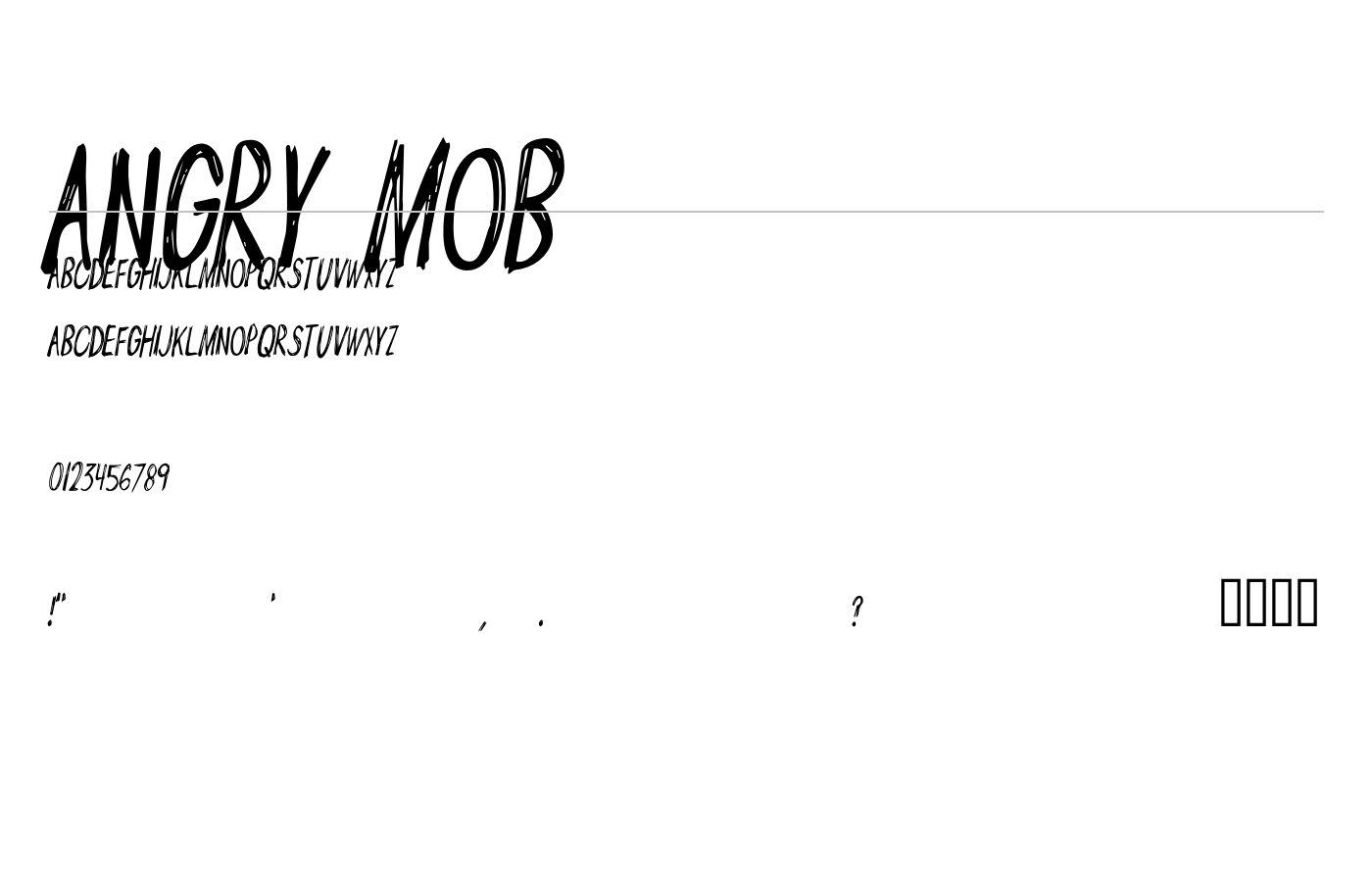
Angry Mob is a condensed, hand-drawn sans serif font with a bold, raw energy expressed through its uneven, jagged strokes and sketchy texture. Its tall, narrow letterforms and irregular lines give it a rebellious, edgy feel perfect for designs seeking a dynamic and informal personality. This font works well for eye-catching headlines, posters, and branding that aims to convey attitude and a sense of urgency.
Angry Mob Font